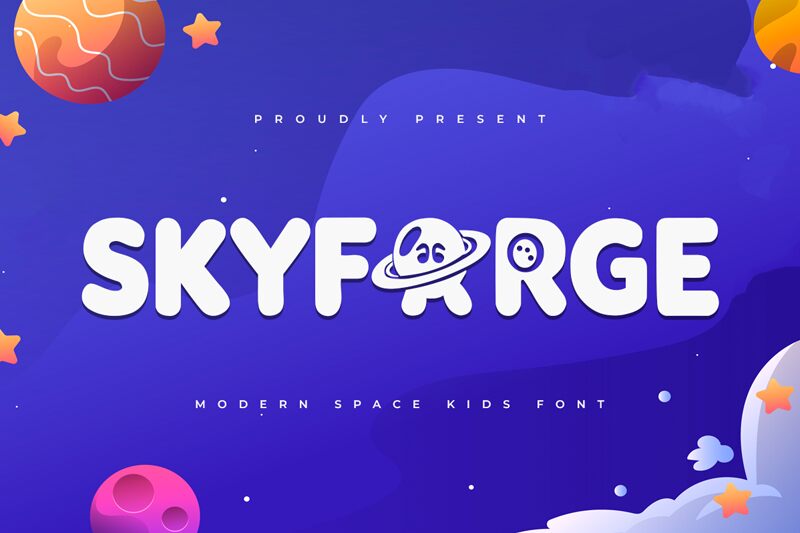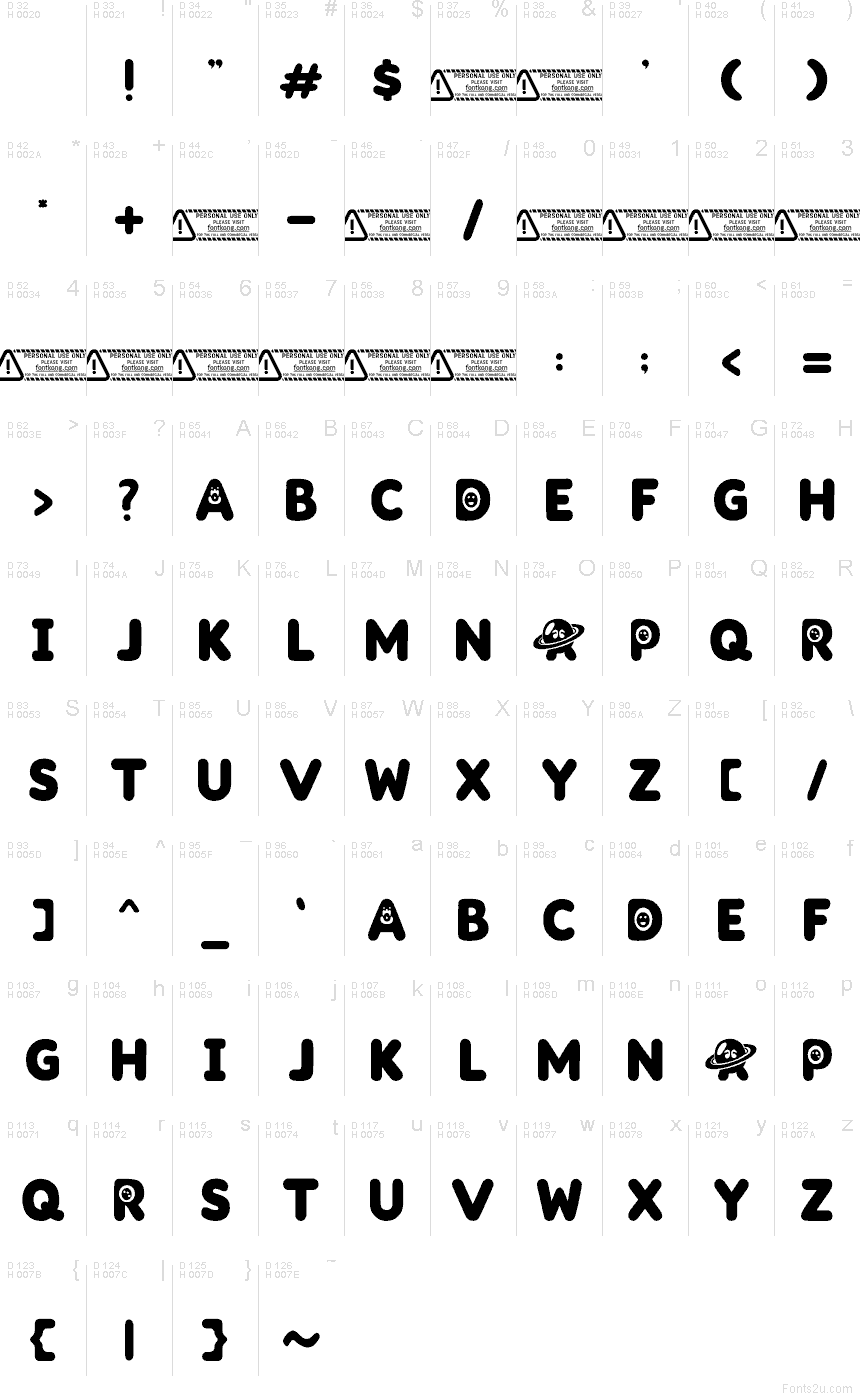
Skyforge font by Kong Font is a free decorative display font that launches straight into playful sci‑fi territory. Its chunky, rounded letters feel soft and rubbery, while built‑in space icons and goofy expressions add an instant storybook vibe. The bold silhouettes read clearly even at a distance, giving your titles that big, friendly “outer space adventure” energy without feeling stiff or technical.
Using Skyforge, you can bring personality to kids’ book covers, cartoon logos, space‑themed posters, STEM camp flyers, YouTube thumbnails, and game titles. This free font shines when used large, where its quirky details and cosmic doodles can really pop. For body text or smaller captions, pair it with a simple geometric sans typeface to keep things readable while Skyforge handles the fun.